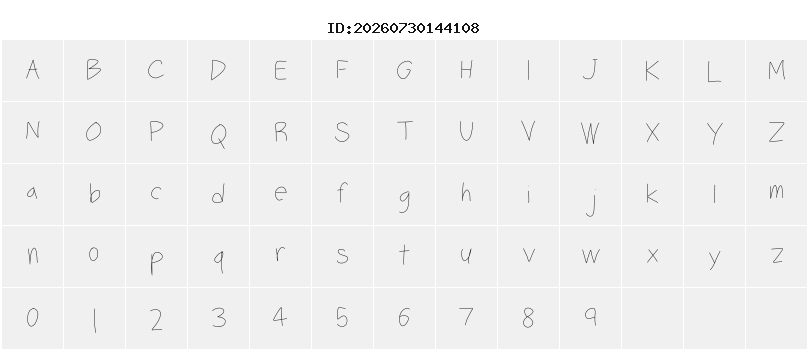
• Font Name: little shrimp
• Full Font Name: little shrimp
About little shrimp.ttf
little shrimp.ttf is a modern, elegant sans-serif font designed for ultimate readability and visual harmony. Perfect for branding, headlines, web design, and print materials.